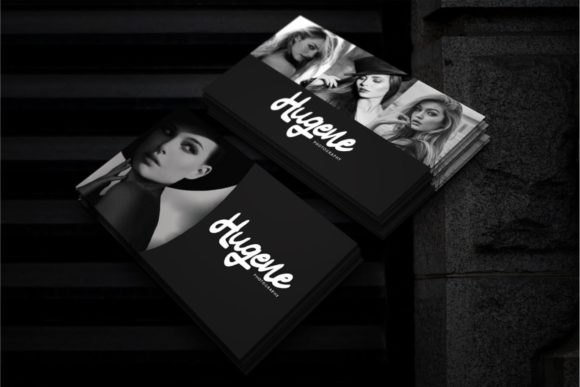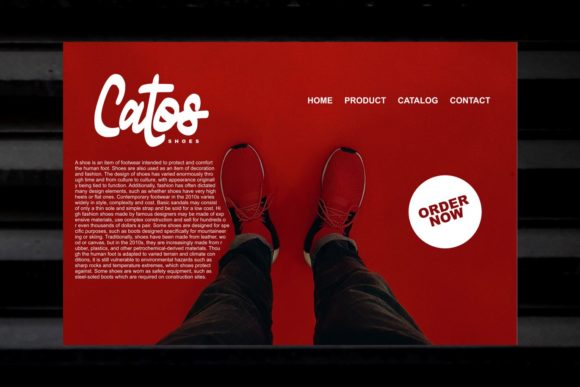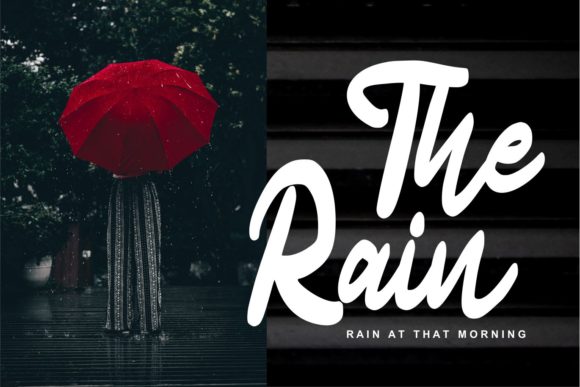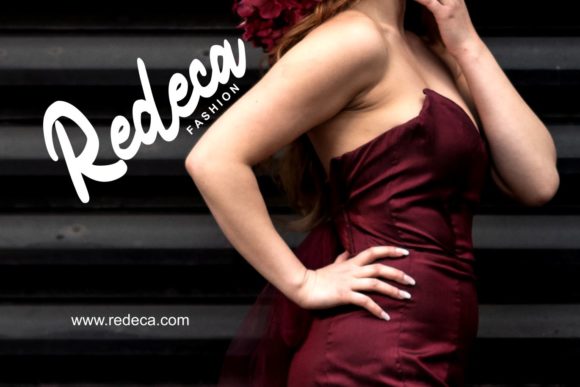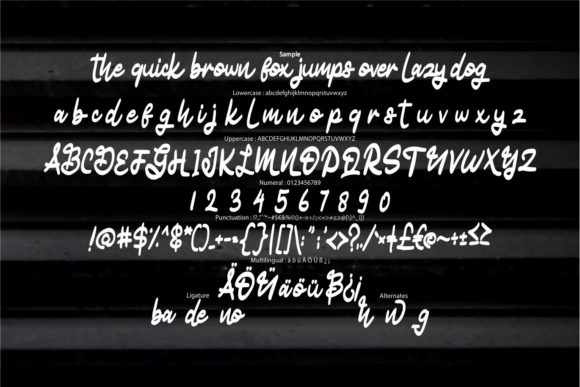
Introduction to Matody Font
Have you ever stared at a blank page, struggling to find the perfect font to bring your creative vision to life? That’s exactly what happened to many designers until they discovered the incredible Matody Font. This stunning handwritten font is a game-changer for any design project, offering a unique blend of classic typography and modern flair.
As a valuable resource for designers, Matody Font offers endless possibilities for creative expression. Its unique style and high-quality design make it an essential tool for anyone looking to elevate their design work. So why settle for a generic font when you can make a statement with the Matody Font?
Key Features of Matody Font
- High-quality design resource perfect for creative projects
- Unique, elegant design suitable for various applications
Honest Review: Matody Font
As a designer, I’m always on the lookout for high-quality design resources to elevate my creative projects. Recently, I stumbled upon the Matody Font and I’m excited to share my honest review.
What works well is the font’s modern and sleek aesthetic, making it perfect for a wide range of design applications. I particularly love the transparent background feature, which gives me more flexibility in my design work.
- ✨ High-quality design with a clean and modern look
- ✨ Wide range of font sizes and styles to choose from
- ✨ Transparent background feature
Matody Font
The Matody Font is a high-quality design resource perfect for creative projects. With its transparent background and versatile style, it can be used in a variety of applications.
Tips for Getting the Most Out of Matody Font
For best results, use the Matody Font in combination with other design elements to create a visually appealing design. Experiment with different font sizes, colors, and arrangements to find the perfect balance.
The Matody Font is ideal for creating invitations, greeting cards, or any other design project where a high-quality, elegant font is required. It’s also perfect for personalizing gifts or creating custom designs for special occasions.